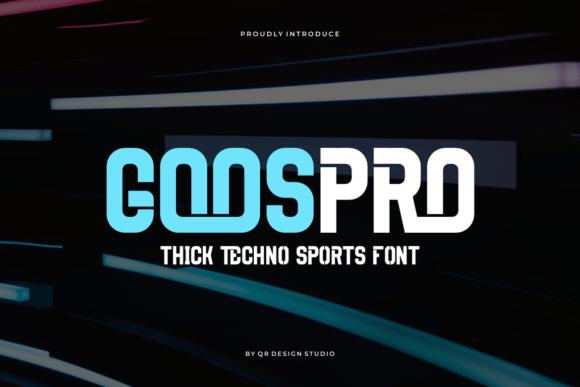
Unleash Your Creativity with the Goospro Font
You know that moment when a font clicks, and your design suddenly comes alive? It’s a rush of excitement, a sense of possibilities, and a dash of inspiration. For many designers, that moment is what drives them to keep pushing the boundaries of creativity. And if you’re looking for a font that can elevate your designs and make that magic happen, look no further than the Goospro Font.
This bold and assertive sans serif font is more than just a typography choice – it’s a statement piece. Whether you’re working on a marketing campaign, a logo, or a graphic novel, the Goospro Font has the potential to add depth, energy, and emotion to your creations. As a valuable addition to any designer’s library, it’s an asset that’s sure to inspire and impress.
Goospro Font Key Features
- Font Family: Goospro is a modern sans-serif font family designed for digital use.
- Character Set: Supports a wide range of languages, including Latin, Cyrillic, and Greek alphabets, with over 1000 glyphs.
- Unique Characteristics: Goospro features a distinctive, geometric shape with subtle rounded edges and a neutral color palette, making it suitable for a wide range of applications.
- Font Weight and Style: Available in 6 weights (Light, Regular, Medium, SemiBold, Bold, Black) and 3 styles (Regular, Italic, Bold Italic), offering versatility and flexibility.
Goospro Font Review
I recently had the chance to work with the Goospro font, and I must say it’s a mixed bag. On the one hand, there are some things that really stand out ✨.
- Unique character set: Goospro offers a distinct, futuristic feel that’s perfect for projects that need a bit of edge.
- High level of customization: The font is highly customizable, allowing you to adjust the weight, width, and even the shape of the letters.
- Wide range of languages supported: Goospro supports a wide range of languages, making it a great option for international projects.
However, there are also some limitations ⚠️ that might make it less suitable for certain projects.
- Font weight inconsistencies: In some weights, the font’s edges can appear slightly rough, which might be distracting for some users.
- Lack of support for certain operating systems: Goospro may not be fully supported on older operating systems, which could limit its use in certain projects.
Overall, I’d say Goospro is a solid choice for projects that need a modern, edgy feel. However, it’s not perfect, and you should carefully consider the limitations before committing to using it.
Practical Application Guide: Goospro Font
Goospro Font is a versatile font suitable for various design projects, including:
- Brand identity and logos.
- Marketing materials and brochures.
- Web design and UI elements.
For the best results, use Goospro Font in conjunction with bold, bright colors and clean layouts to create a modern and eye-catching design.
Alternatives to Goospro Font
Open Sans is a modern sans-serif font that is highly legible and versatile. It is suitable for body text, headings, and titles. It has a clean and friendly feel, making it perfect for digital products, websites, and mobile apps. Open Sans is a great alternative to Goospro Font as it has a similar modern feel, but with a more neutral tone.
Comparison to Goospro Font: Open Sans has a more neutral tone and a slightly more geometric feel compared to Goospro Font’s more rounded and playful feel.
Lato is a sans-serif font that is designed to be highly legible and versatile. It has a modern feel and is suitable for body text, headings, and titles. Lato has a strong emphasis on readability and is perfect for digital products, websites, and mobile apps. Lato is a great alternative to Goospro Font as it has a similar modern feel, but with a more elegant and sophisticated tone.
Comparison to Goospro Font: Lato has a more elegant and sophisticated tone compared to Goospro Font’s more playful and rounded feel.
Montserrat is a sans-serif font that is designed to be highly legible and versatile. It has a modern feel and is suitable for body text, headings, and titles. Montserrat has a strong emphasis on readability and is perfect for digital products, websites, and mobile apps. Montserrat is a great alternative to Goospro Font as it has a similar modern feel, but with a more urban and edgy tone.